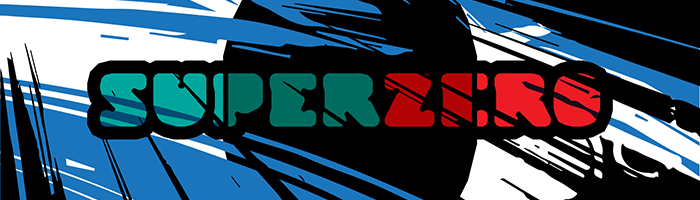
tm Nibble
by thalamic
This font and tm Byte started off as one. Both were different from what they have now become. The idea was to create a very heavy, minimal curves and angles to give a sense of the glyph.
It started with a plain N and a solid O. Making the E match either the N or the O resulted in deviation from the style just enough that it warranted a spin-off into a font of it's own.
Some letters—such as G and H—proved quite difficult to match in the style of either. A slight angle shift resulted in a glyph that did not go with other glyphs. I kept trying different possibilities...and at some point decided to save the discarded option into another fs, which now contains more than 200 characters.
The teardrop counter in tm Byte forced a complete redraw of all glyphs at about 2× the size.
I am already working on two additional fonts that came out of this exercise...and it might yield more.
tm Nibble is 16 bricks tall...